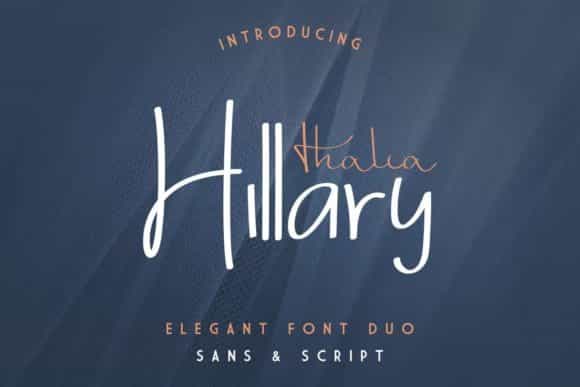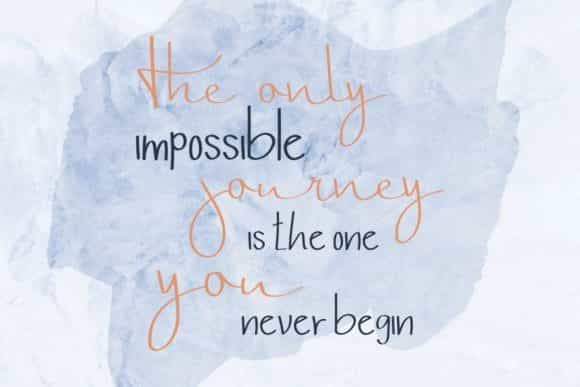
Discover Thalia Hillary Font Duo, part of the Commercial Sans Serif Handwritten collection—a versatile and unique font perfect for adding a personal touch to your projects. Download it for free and enjoy crafting designs with style, from invitations to social media posts. This font is available exclusively for personal use, giving you the freedom to create without limits. Unlock your creativity with Thalia Hillary Font Duo today!
Spice up your projects with the new Thalia Hillary Font. This font is perfectly fit for wedding invitations, cards, signature logos and other branding projects. Thalia Hillary contains Upper and Lowercase Basic Characters, Numbers and Punctuation.